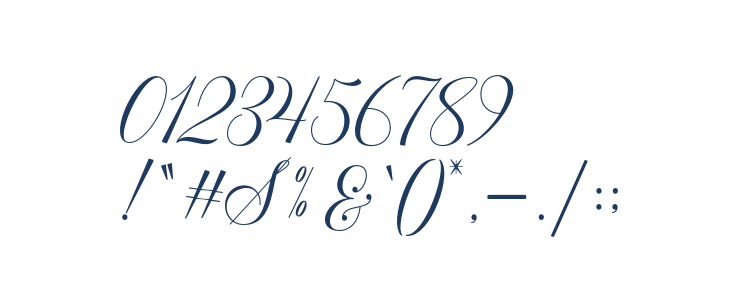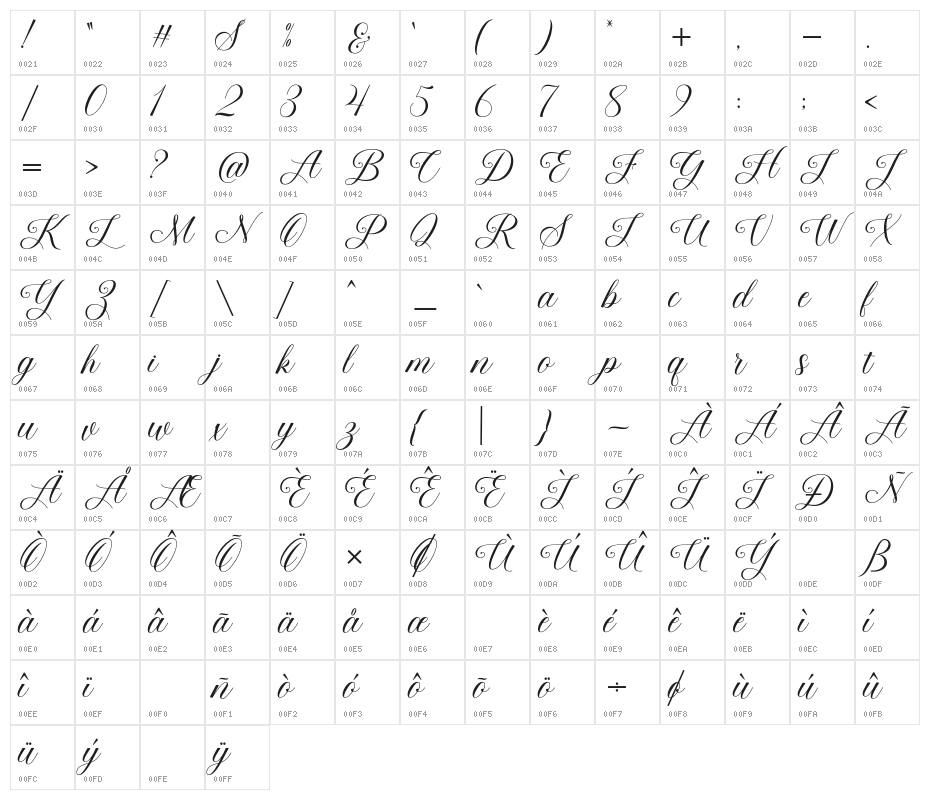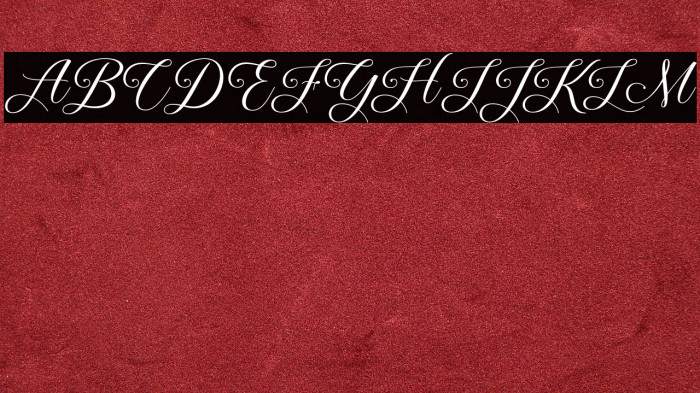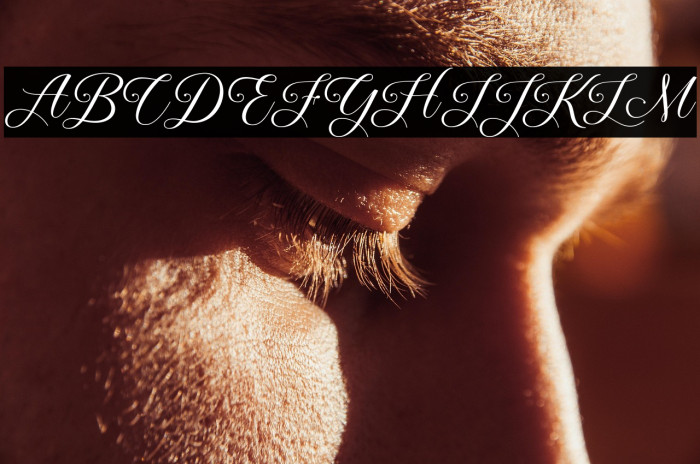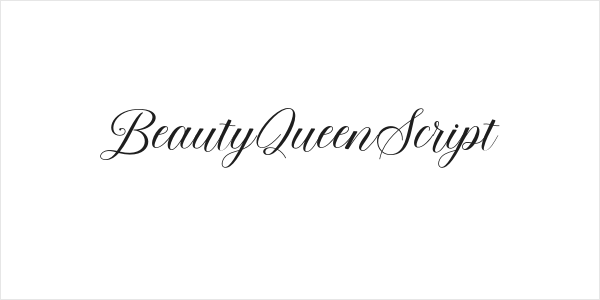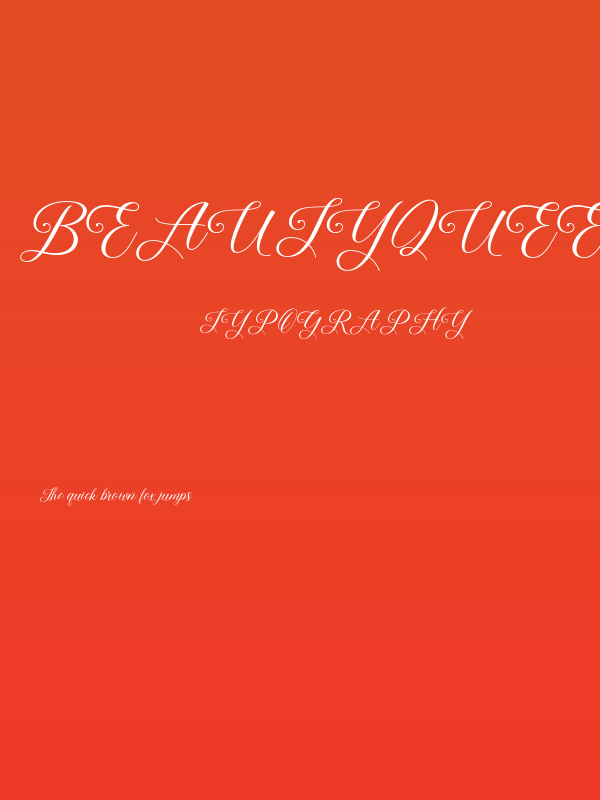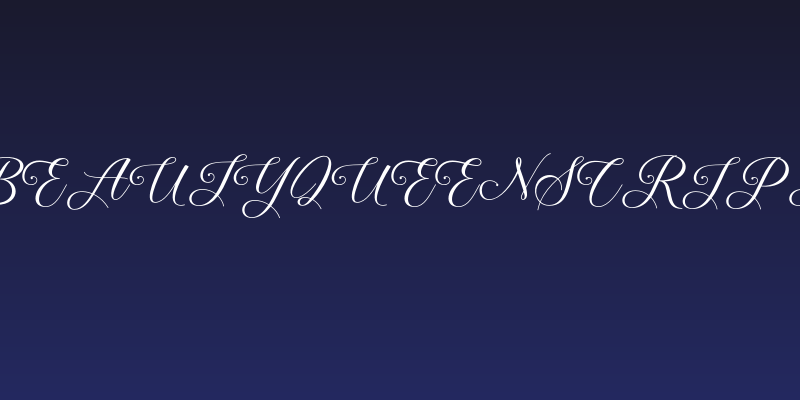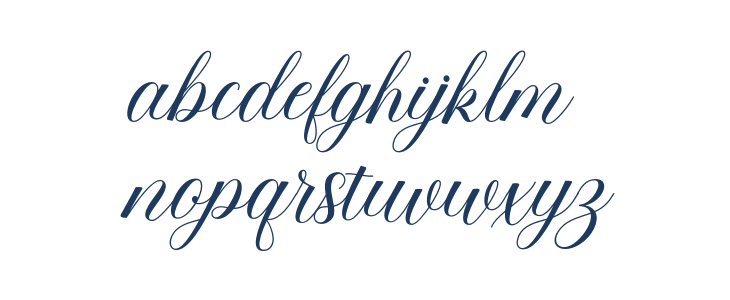
BeautyQueenScript Font
BeautyQueenScript Description
This elegant script font features flowing, cursive letters with a sophisticated flair. The uppercase letters are adorned with intricate loops and swirls, giving them a decorative and ornate appearance. The lowercase letters maintain a graceful continuity, with smooth connections between each character. The numerals are stylishly curved, complementing the overall aesthetic. Special characters are designed with the same attention to detail, enhancing the font's luxurious feel. This font is perfect for projects that require a touch of elegance and refinement.
| Use Case | Logos, Invitations, Decorative Headlines |
| Proposed Projects | Ideal for wedding invitations, luxury branding, elegant stationery, and decorative headlines. |